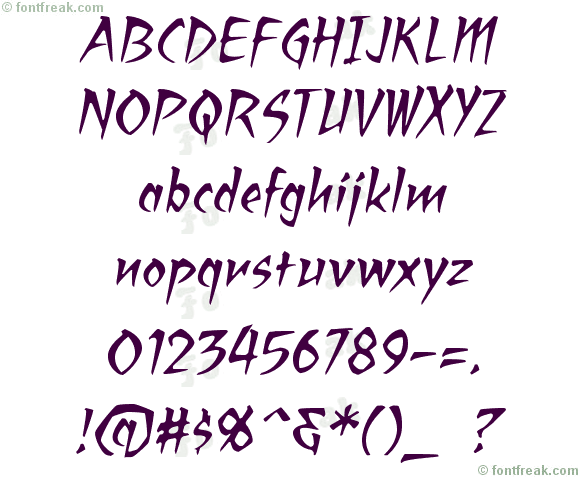
About Raging Red Lotus
Raging Red Lotus is a captivating display font designed by Nate Piekos and released by Blambot Fonts. This freeware typeface showcases a unique and bold personality, making it an ideal choice for projects that require a striking visual presence. With its dynamic letterforms, Raging Red Lotus falls into the decorative category, characterized by its expressive curves and distinct style.
Visually, Raging Red Lotus features a medium stroke weight that gives it a sturdy yet fluid appearance. The font exhibits a lively contrast, allowing certain elements to stand out and catch the eye. The spacing between characters is well-balanced, ensuring readability while maintaining its artistic flair. Decorative elements are interwoven throughout the font, creating a sense of movement and energy that is perfect for eye-catching designs.
This font is versatile and can be effectively utilized in various contexts. It works wonderfully for wedding invitations, where its elegant yet playful style can charm guests. Additionally, it shines on movie posters, lending a dramatic touch that draws attention. Raging Red Lotus is also suitable for restaurant menus, particularly for establishments aiming to convey a modern and trendy atmosphere. Graphic designers will find it invaluable for branding projects, where a unique typeface can help businesses stand out.
Targeting graphic designers, small business owners, and content creators, Raging Red Lotus is not just a font; it's a design statement. The exciting aesthetic and free-to-use license make it accessible for anyone looking to elevate their projects with an artistic touch. Offering a fresh take on decorative typography, the Raging Red Lotus font free download is an exceptional choice for those seeking to make a memorable impact with their designs.